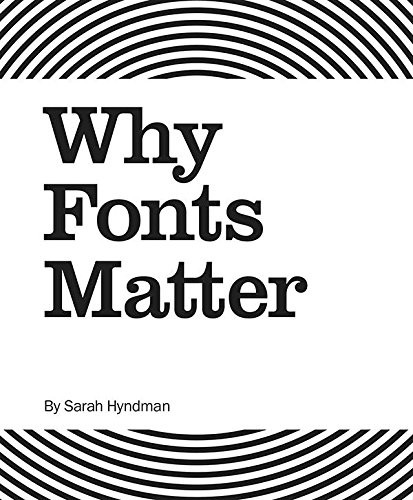
Why Fonts Matter
Sarah Hyndman
Take a look at the experiences and associations typeface evokes.
Fonts have different personalities that can create trust or mistrust, give you confidence, make things seem easier to do or make a product taste better. Understand the science behind how fonts influence what you read. They're hidden in plain sight, they trigger memories, associations and multi-sensory experiences in your imagination. You may not believe it, but fonts can change the meanings of words right before your very eyes, alter the taste of your food, evoke emotional responses and reveal their users' personalities.
Graphic designer Sarah Hyndman specializes in exploring how fonts influence us as type consumers; Why Fonts Matter synthesizes Hyndman's 20 years of experience as graphic designer with her typographic research and the findings of experimental psychologists and neuroscientists.
Fonts have different personalities that can create trust or mistrust, give you confidence, make things seem easier to do or make a product taste better. Understand the science behind how fonts influence what you read. They're hidden in plain sight, they trigger memories, associations and multi-sensory experiences in your imagination. You may not believe it, but fonts can change the meanings of words right before your very eyes, alter the taste of your food, evoke emotional responses and reveal their users' personalities.
Graphic designer Sarah Hyndman specializes in exploring how fonts influence us as type consumers; Why Fonts Matter synthesizes Hyndman's 20 years of experience as graphic designer with her typographic research and the findings of experimental psychologists and neuroscientists.